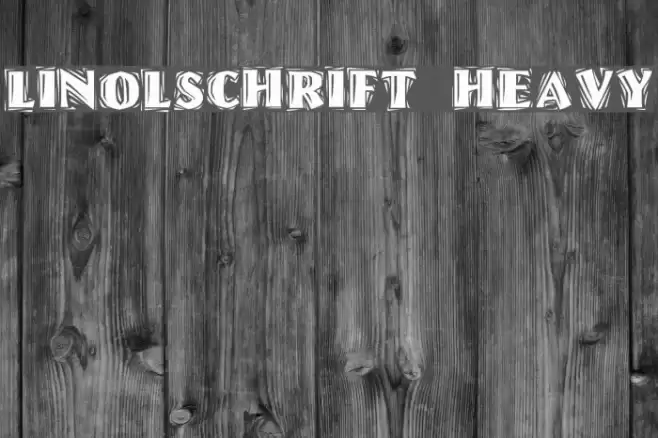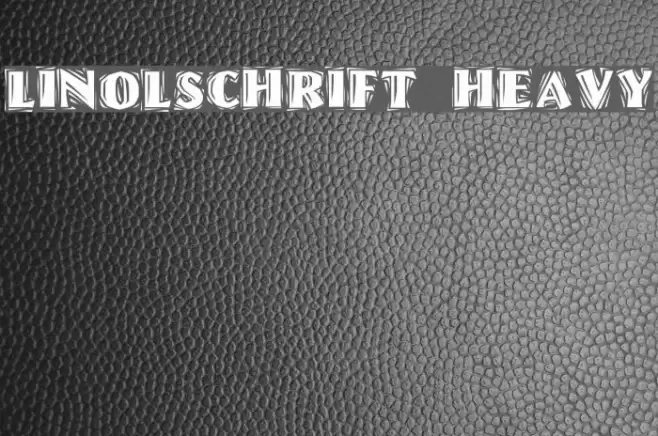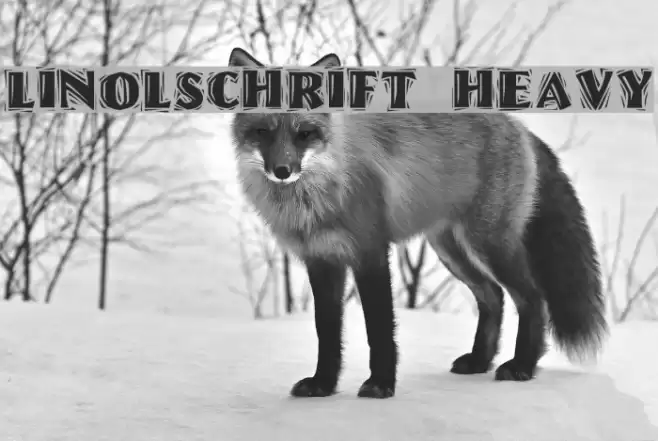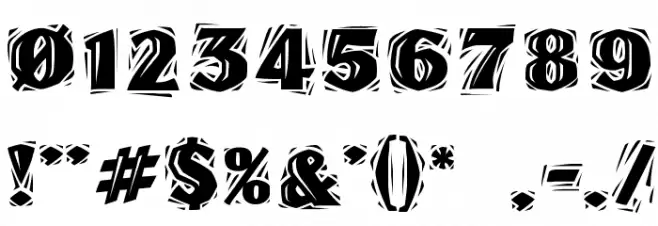
Linolschrift Heavy Font
Linolschrift Heavy Description
This font exhibits a bold and striking appearance, characterized by its heavy weight and unique, hand-carved style. The letters are thick and robust, with a textured, almost woodcut-like effect that adds depth and dimension. Each character is distinct, with sharp edges and a slightly irregular outline that gives it a handcrafted feel. The font's boldness makes it highly visible and attention-grabbing, suitable for making a strong visual impact. Its artistic style is reminiscent of traditional printmaking techniques, offering a vintage yet timeless appeal.
A bold, textured font with a hand-carved, woodcut style from Uncategorized fonts.
- Proposed Projects: Ideal for posters, album covers, branding, and any project requiring a bold, artistic statement.
- Overall Style: Vintage